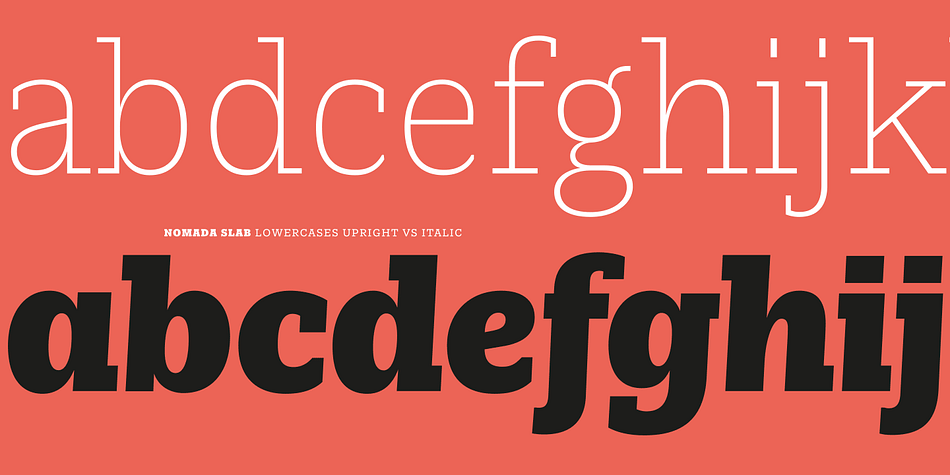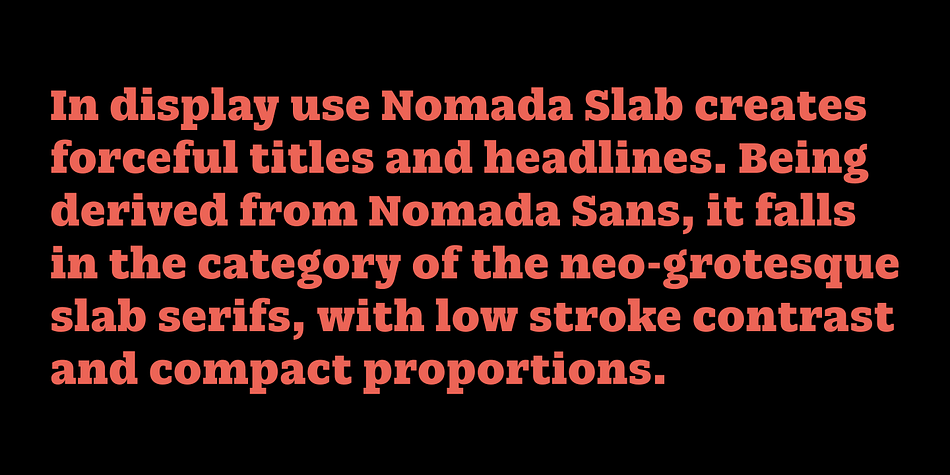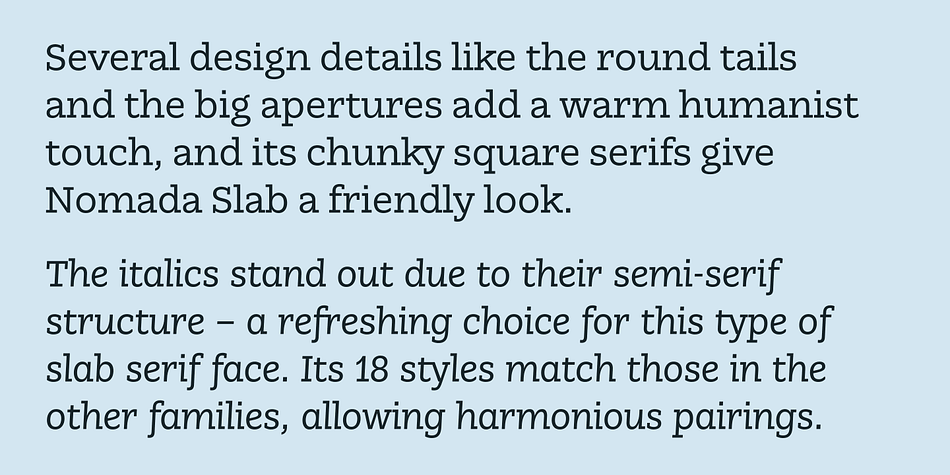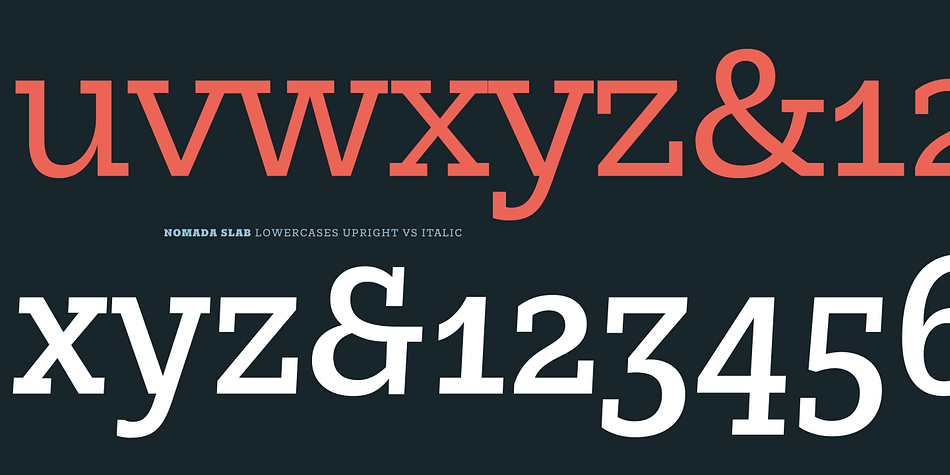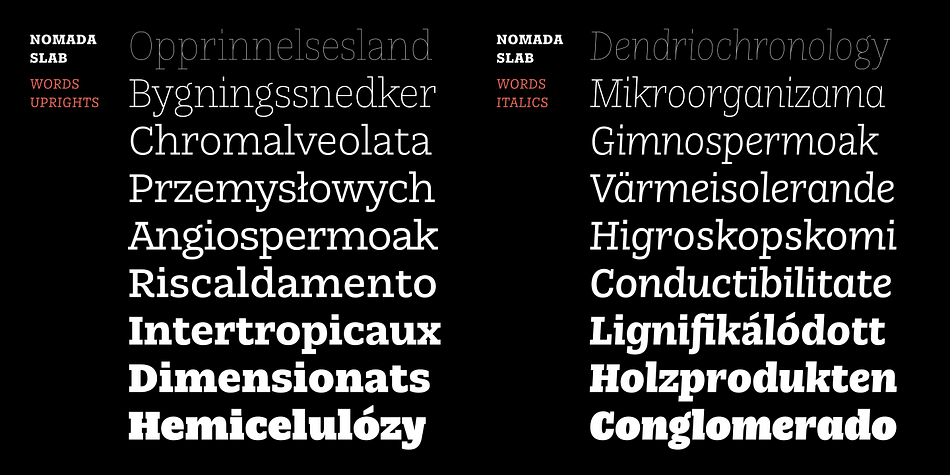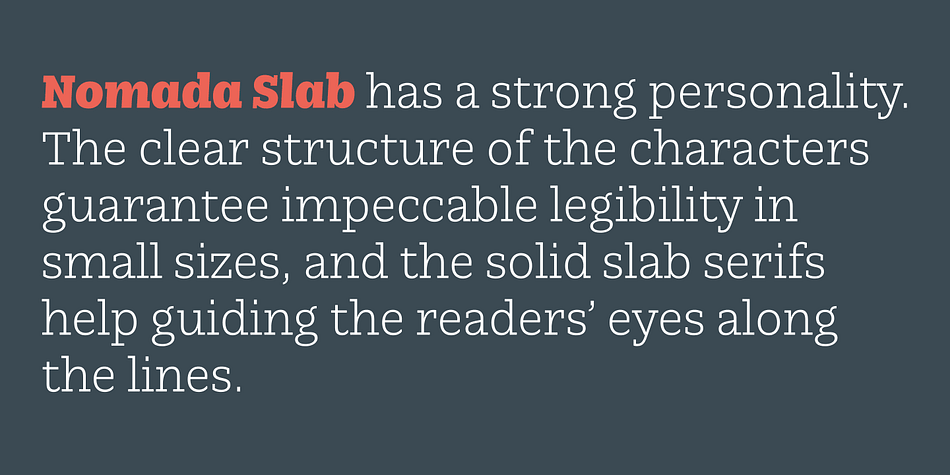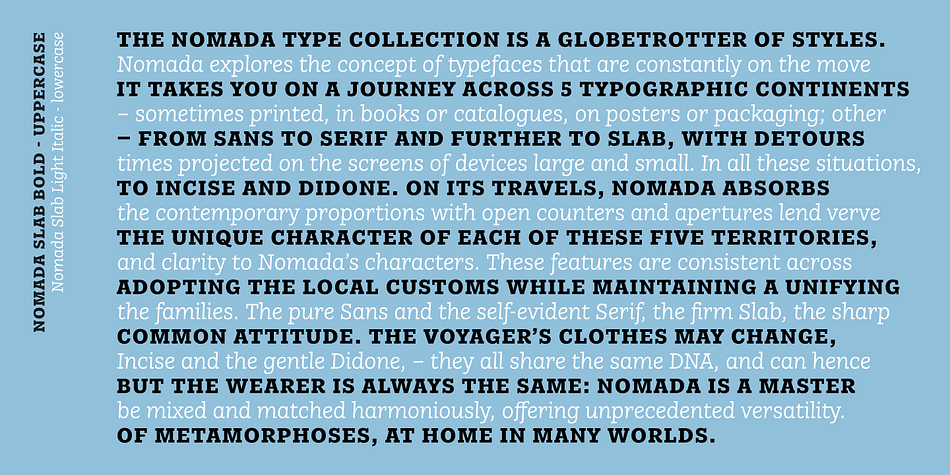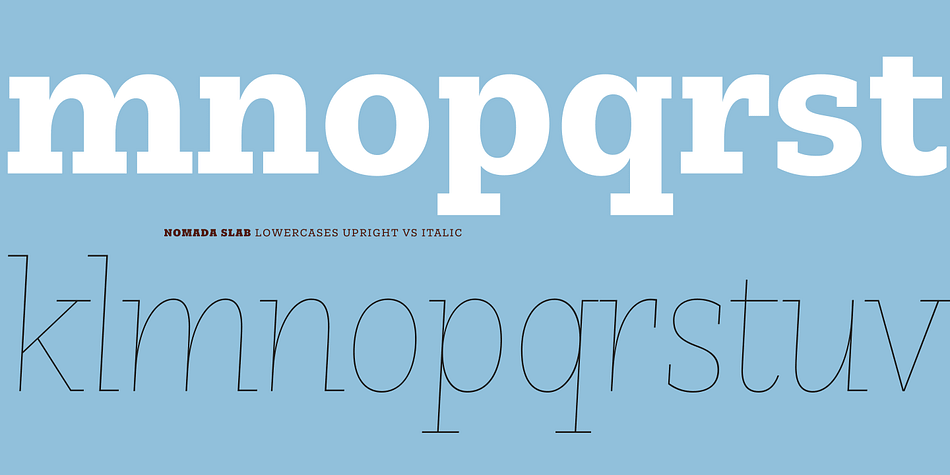
Designed by Jordi Embodas, Nomada Slab is a slab serif font family. This typeface has eighteen styles and was published by Tipografies.
Nomada Slab has a strong personality. The clear structure of the characters guarantee impeccable legibility in small sizes, and the solid slab serifs help guiding the readers’ eyes along the lines. In display use Nomada Slab creates forceful titles and headlines.
Being derived from Nomada Sans, it falls in the category of the neo-grotesque slab serifs, with low stroke contrast and compact proportions. Like the Sans, it has square dots. Several design details like the round tails and the big apertures add a warm humanist touch, and its chunky square serifs give Nomada Slab a friendly look.
The italics stand out due to their semi-serif structure – a refreshing choice for this type of slab serif face. Its 18 styles match those in the other families, allowing harmonious pairings.